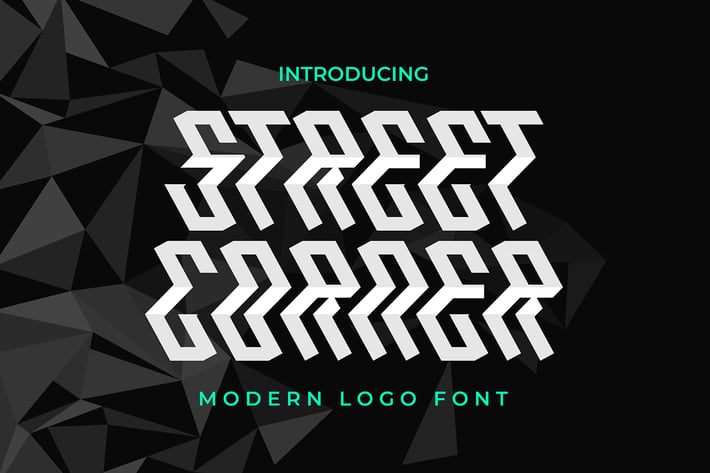
Street Corner - Modern Logo Font
The Street Corne font is a modern logo font that is uniquely designed with sharp angles that are both striking and visually appealing. This font is perfect for a variety of design projects, such as logos, games, esports, product packaging, product branding, and more.
With its distinctive look, the Street Corne font is sure to make an impact and stand out in any design. Whether you're looking to create a bold and modern design or add a touch of edge to your brand, this font is a great choice.